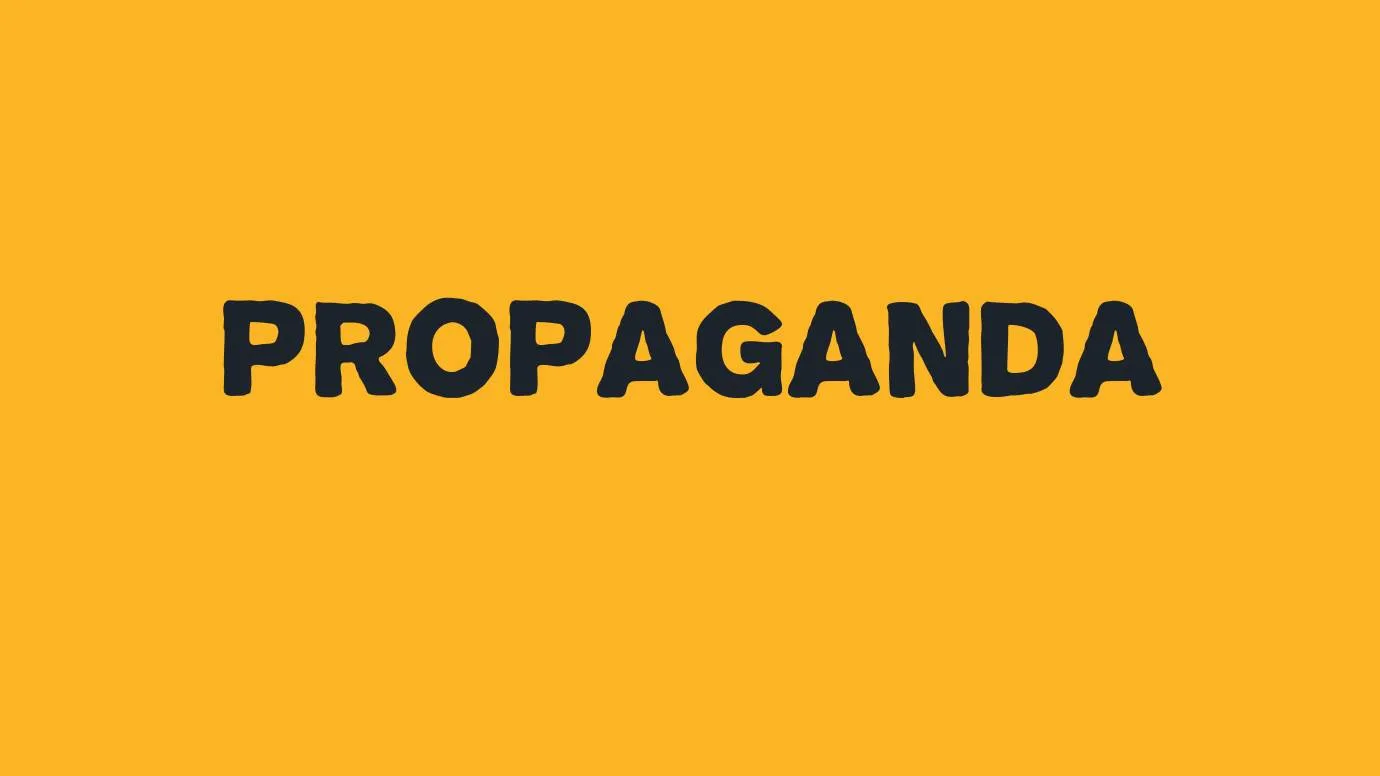
Propaganda Font Family is classified in the category of display family of fonts. Matthew Welch is the main manufacturer of this classic font family. Aerova font is similar to this typeface in different terms and styles.
Propaganda Font